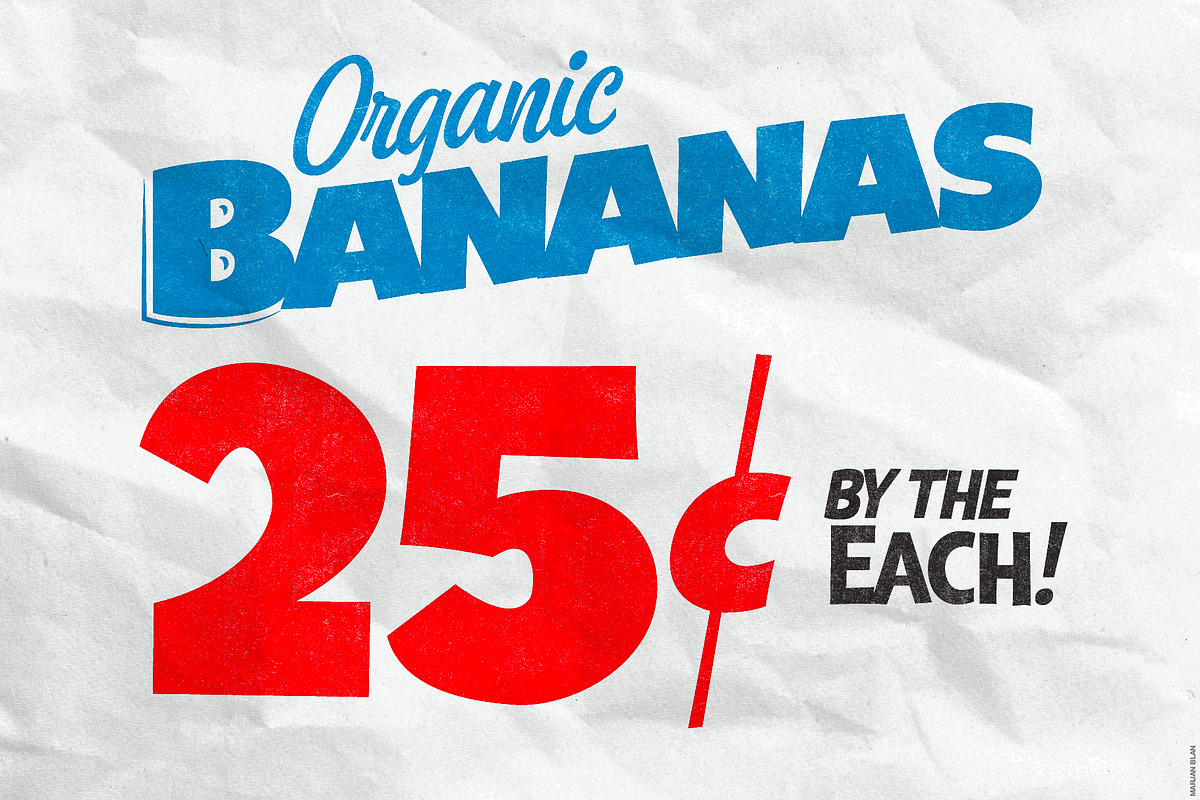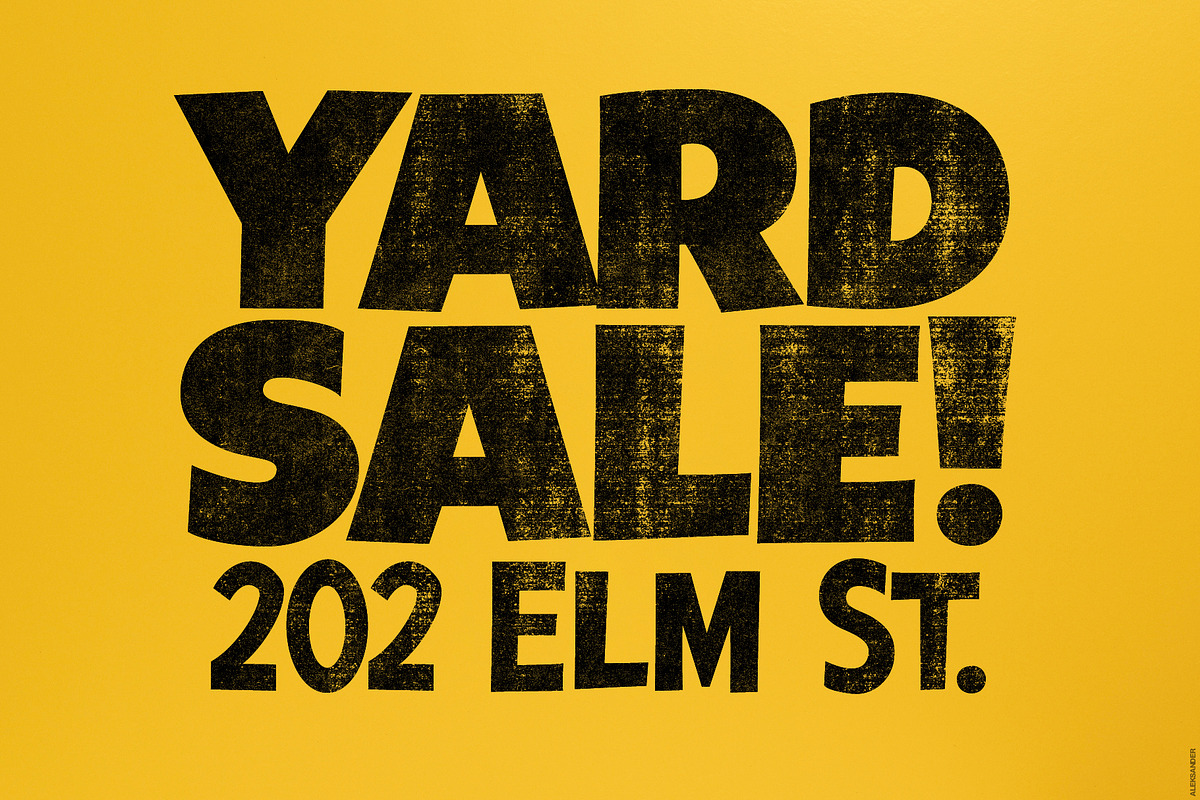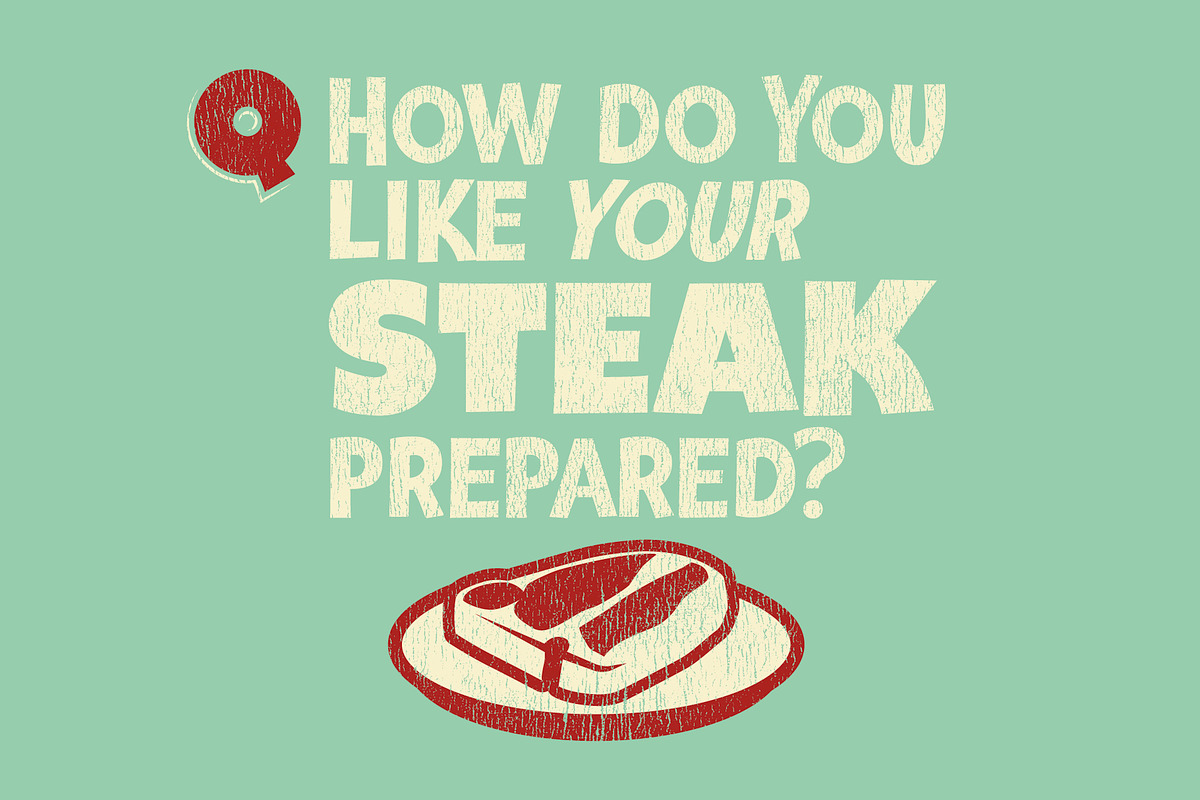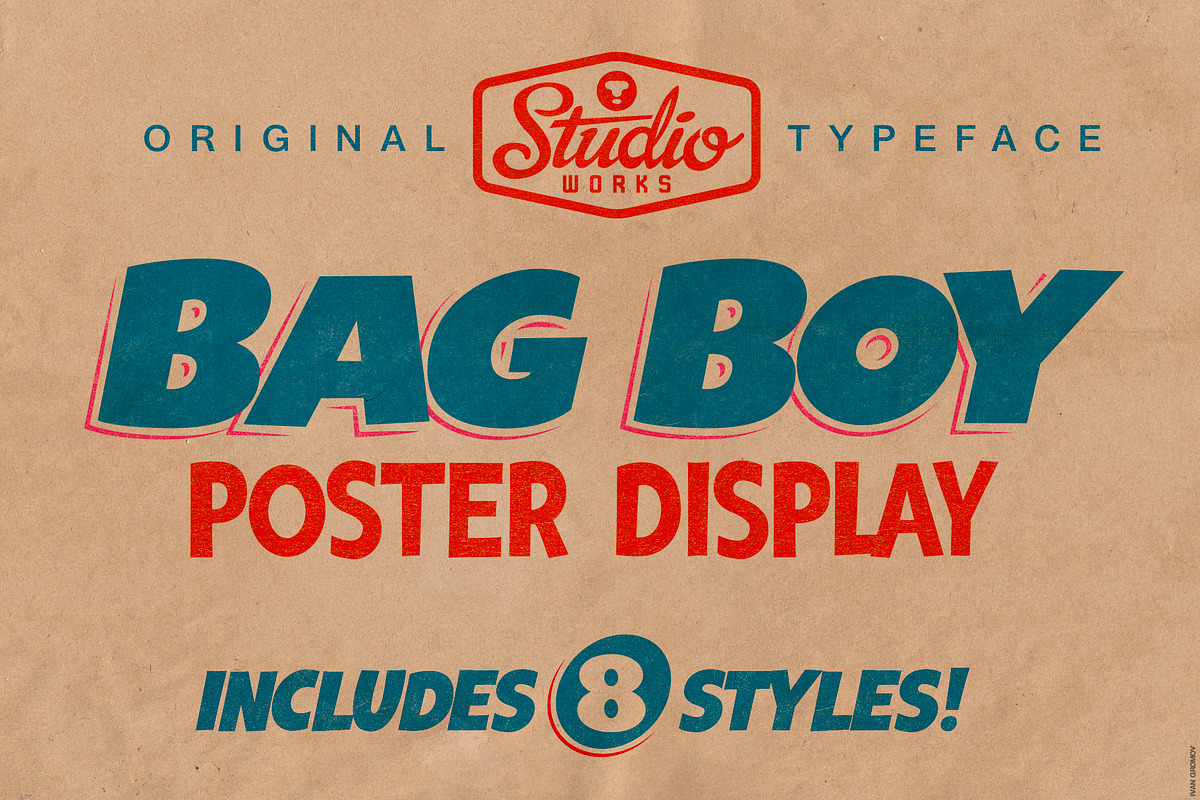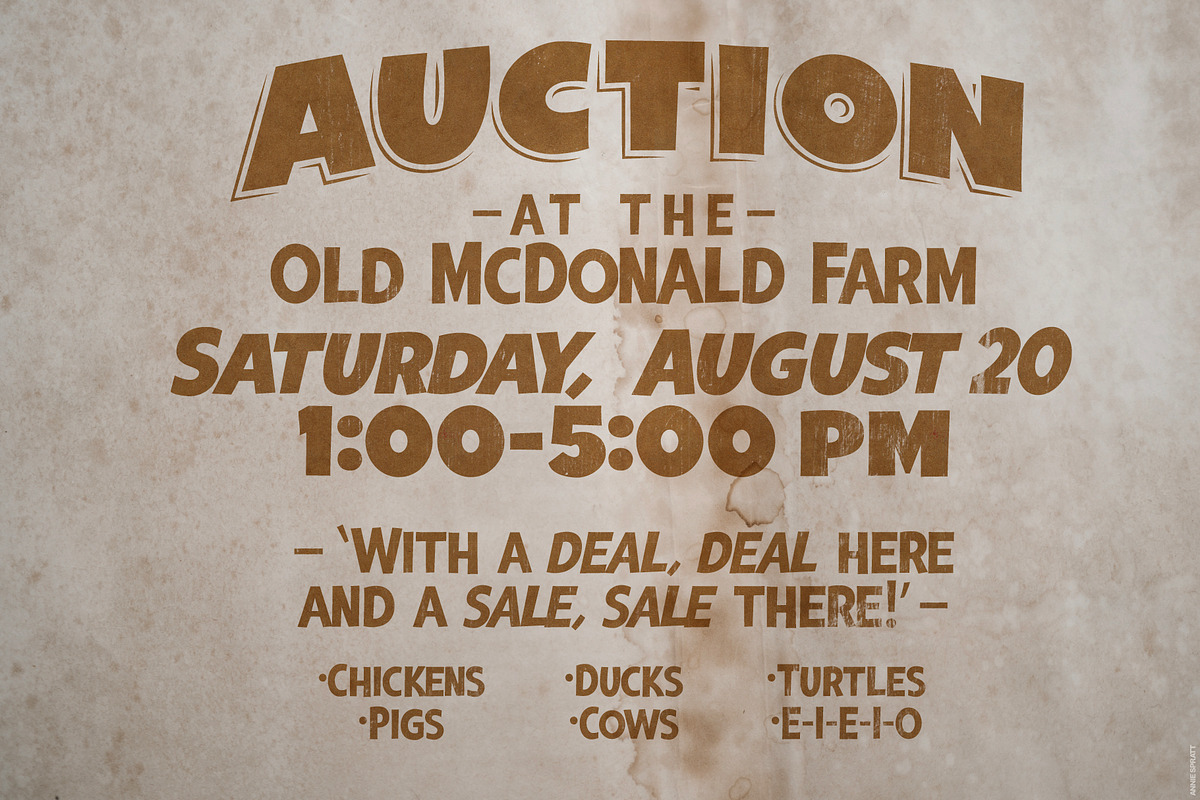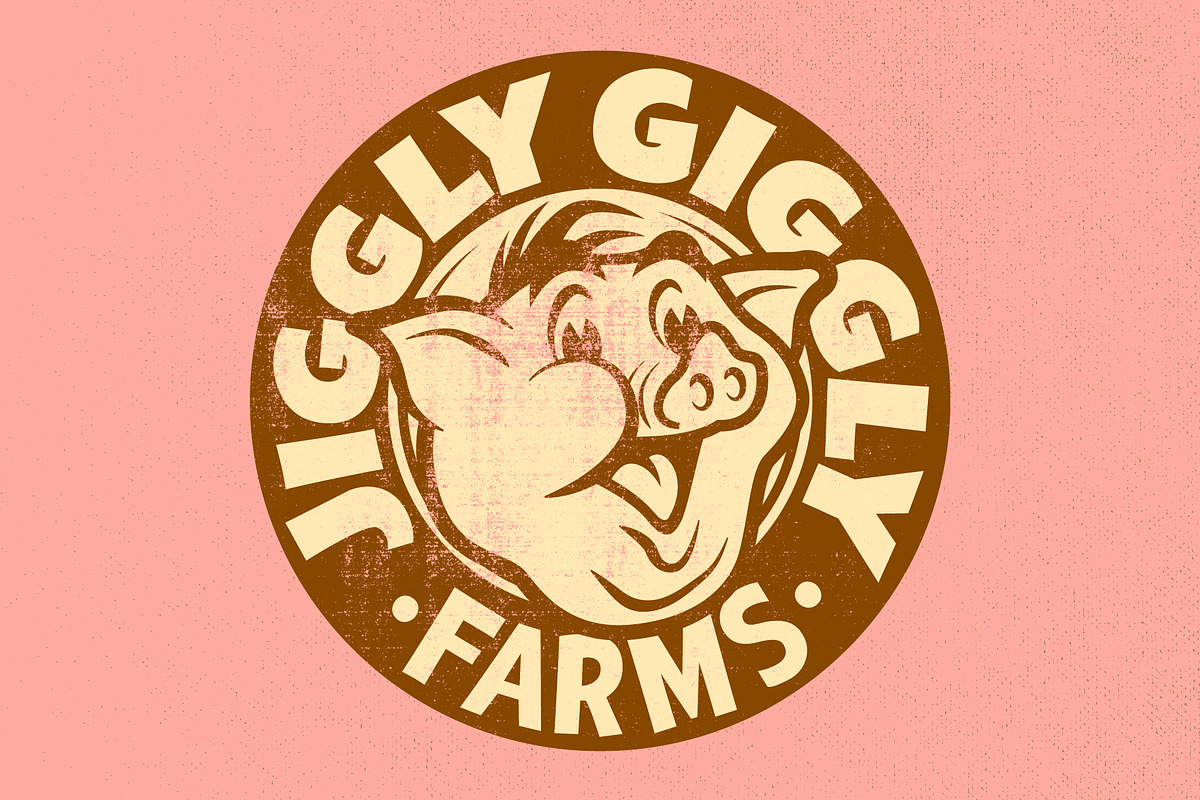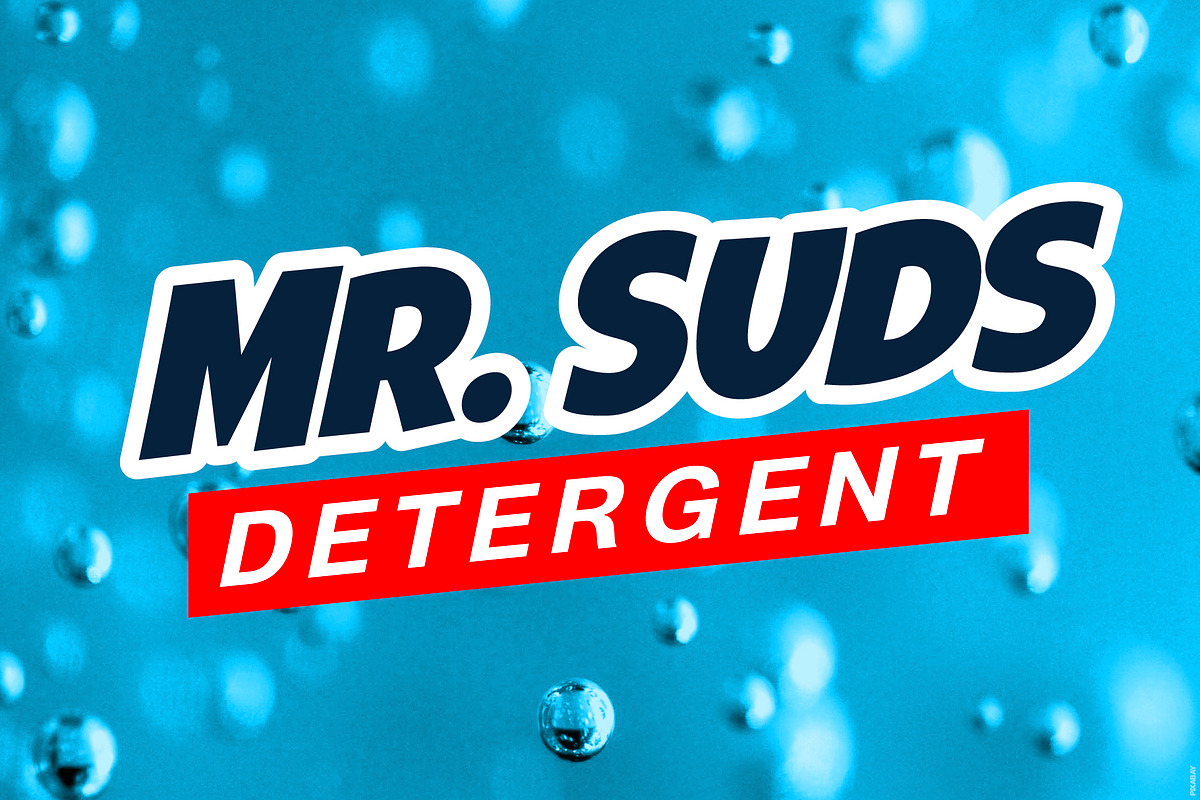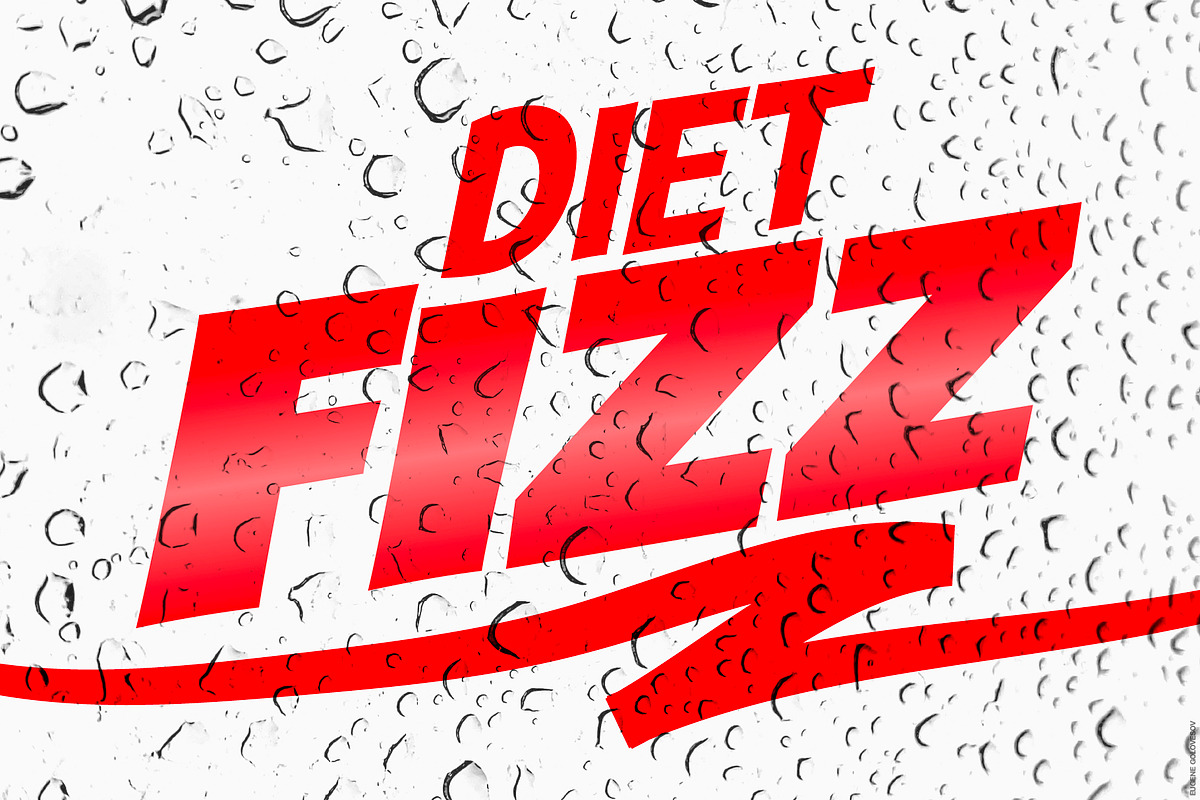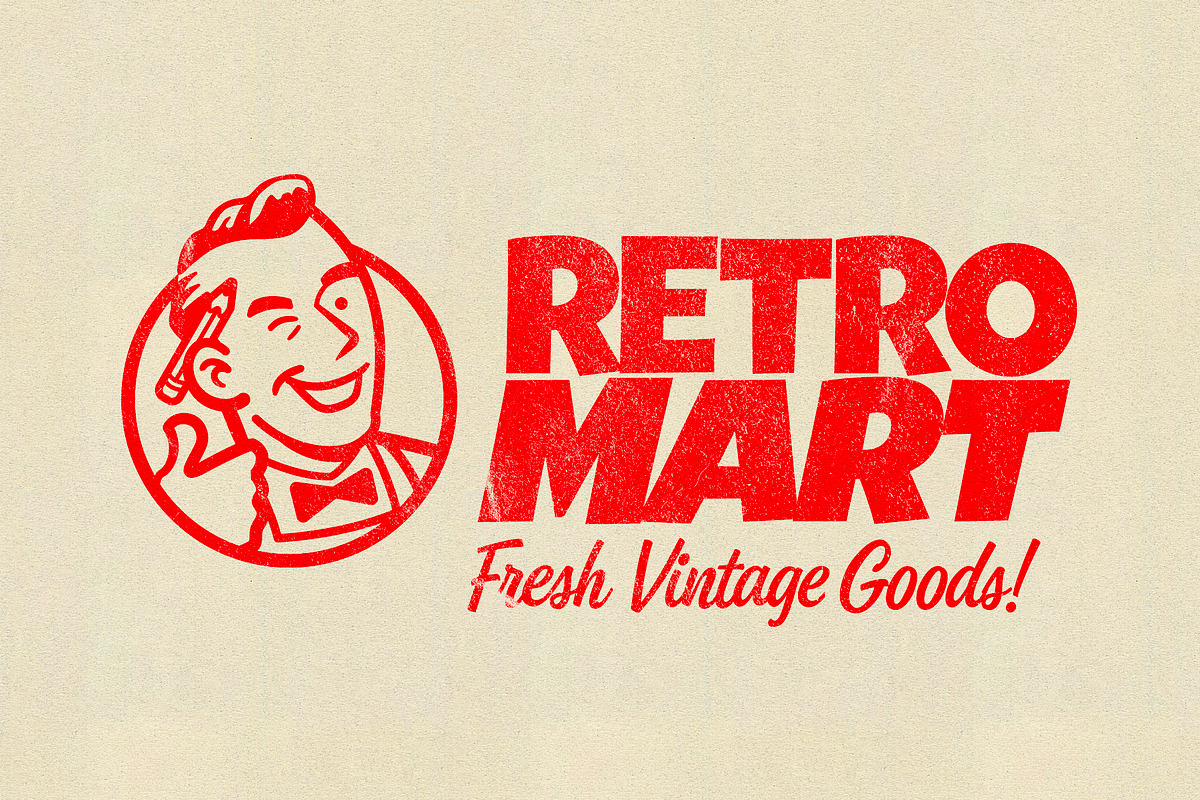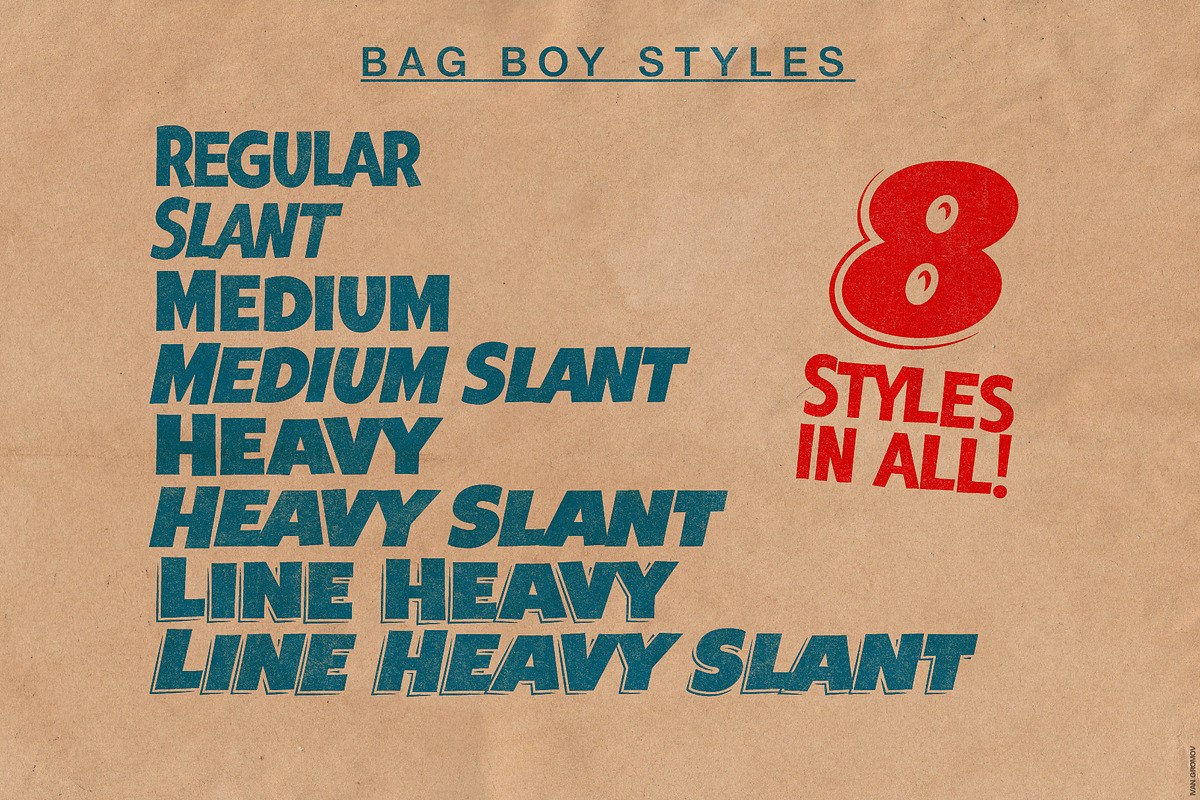
Bag Boy | Poster Display Type
Available now on StudioWorks' shelves! It's BAG BOY — a fresh collection of 8 hand-lettered, poster-style typefaces!
Bag Boy is a wink to the retail charm of hand-lettered, suburban supermarket display signage of yesteryear. This hard-working and versatile collection of typefaces features 3 different weights and one heavy variant with a lined drop shadow detail for more emphasis. Oblique slants of each face complete the order for a total of 8 unique type styles! If you're looking for bold, hand-lettered sans serif alternatives for logos, posters, and signage — on paper or plastic — Bag Boy delivers!
Check out what Bag Boy's packed with:
- Upper Case (A-Z) and Small Caps (a-z) characters
- Eight different styles: Regular, Slant, Medium, Medium Slant, Heavy, Heavy Slant, Line Heavy and Line Heavy Slant
- Numbers (0-9)
- Standard punctuation and glyphs